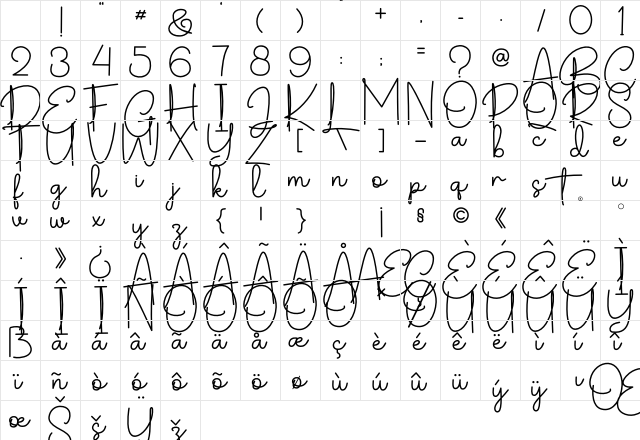
Complete Rottedim Signature Regular glyph index. Displaying only characters natively supported by Rottedim Signature Regular font.
Rottedim Signature is a composed and adaptable typeface that performs quietly and consistently across a wide range of design contexts.
Pro Tip: Use Rottedim Signature in both headline and body roles to test its range before committing to a single application.